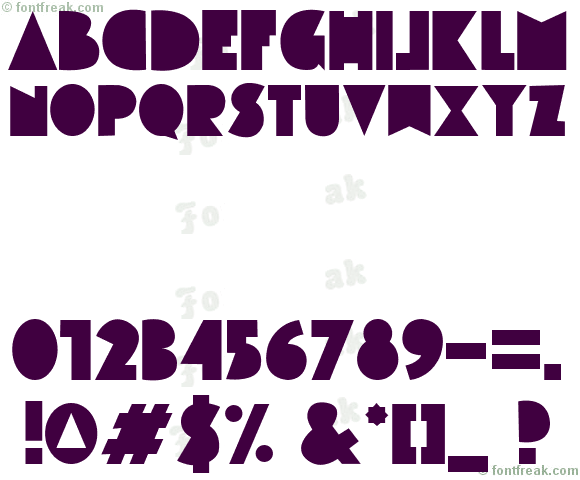
CUTTY_CRE
The CUTTY_CRE font by FRED CRE is a striking display typeface that embodies a modern aesthetic with its unique character. This font falls into the category of decorative typefaces, making it an excellent choice for projects that require a touch of creativity and flair. The visual characteristics of CUTTY_CRE include a bold stroke weight and a balanced contrast that gives it a distinctive presence. The lettering is spaciously arranged, ensuring easy readability while maintaining a stylish appearance. Decorative elements are subtly integrated, enhancing the overall artistic feel without overwhelming the viewer.
CUTTY_CRE is particularly well-suited for a variety of applications. Graphic designers might find it ideal for creating eye-catching movie posters that demand attention. Small business owners can use it for restaurant menus, where a creative touch can elevate the dining experience. Additionally, content creators can leverage this font for social media graphics or promotional materials that aim to stand out. Wedding planners may also consider using CUTTY_CRE for invitations and save-the-date cards, adding a unique twist to traditional designs.
The target audience for this font includes graphic designers, small business owners, and content creators who are seeking a distinctive typeface to enhance their projects. The CUTTY_CRE font free download makes it accessible for anyone looking to incorporate a memorable design element into their work.
What sets CUTTY_CRE apart is its ability to blend modern flair with functionality. It captures attention while remaining versatile enough for various applications, making it a valuable addition to any designer's toolkit. Whether you're crafting a bold advertisement or a heartfelt invitation, CUTTY_CRE offers the perfect balance of style and readability, ensuring your message is communicated effectively.